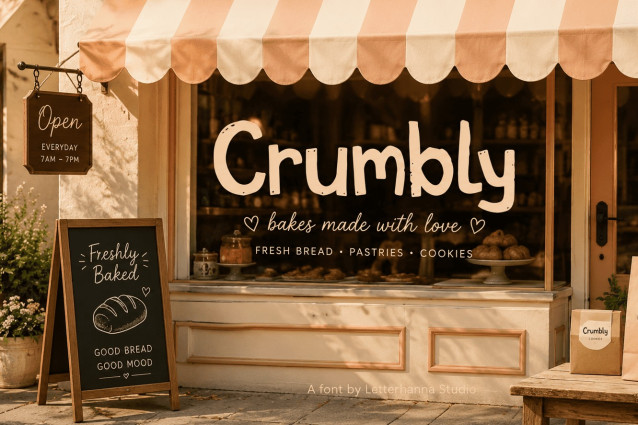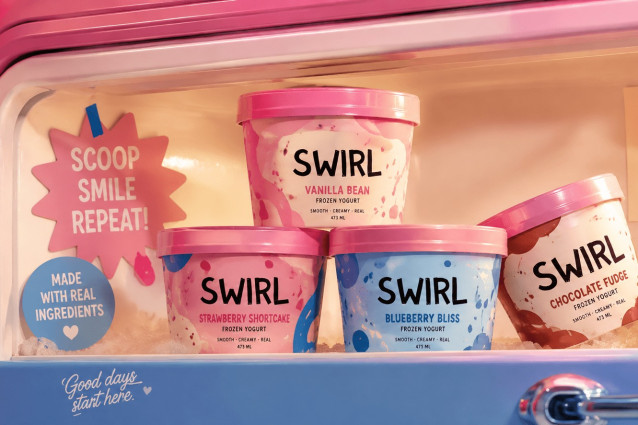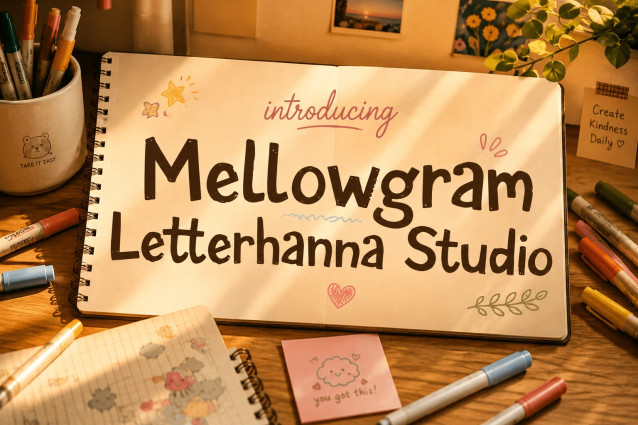
Mellowgram Font
Mellowgram: A Hand Drawn Font With Real Character
Picture this: you’ve spent hours picking fonts, and none of them feel “right.” That quiet frustration is familiar to almost every designer — typefaces that look fine on paper but say nothing about who you actually are.
A hand drawn font solves that problem almost instantly. Mellowgram isn’t just letters on a page; it’s texture, rhythm, and personality captured in every stroke.
A hand drawn font solves that problem almost instantly. Mellowgram isn\’t just letters on a page; it\’s texture, rhythm, and personality captured in every stroke.
There\’s a common misconception that handwritten styles mean sloppy or inconsistent lettering, so people avoid them for anything that needs to look polished. In reality, a great marker font is engineered carefully — bold, deliberate lines with subtle imperfections that mimic real ink on paper, not random scribbles.